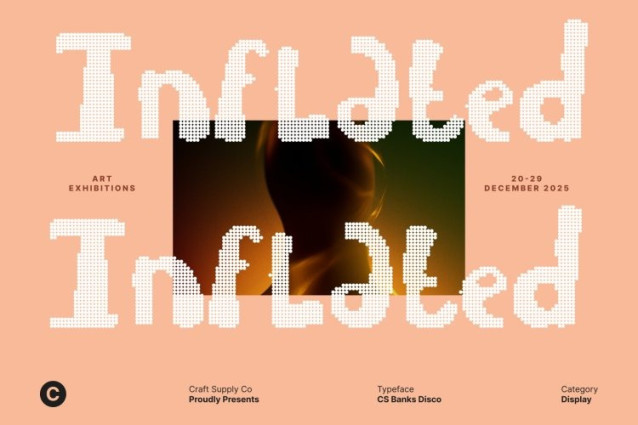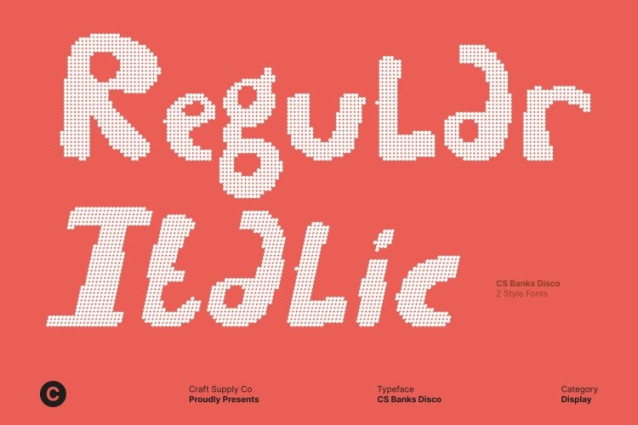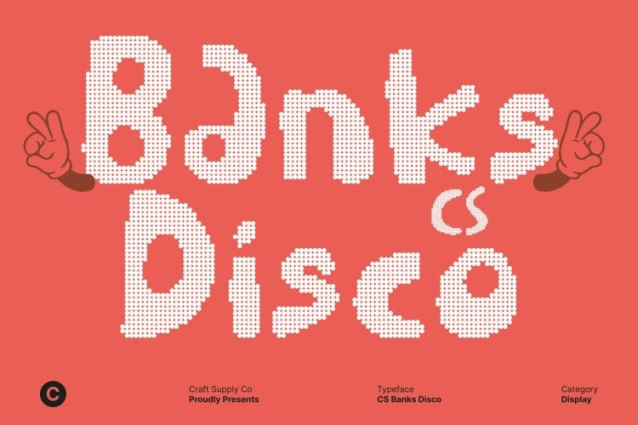
CS Banks Disco Font
CS Banks Disco Font This is a playful hand-drawn display font crafted with bold strokes and friendly geometric shapes. Its spontaneous, sketch-like construction gives each letter a joyful rhythm, creating a youthful and energetic appearance that feels natural, expressive, and full of character.
Experimental Letterforms with Funky Disco Flair
Embracing an experimental approach, this font features lively proportions and slightly uneven strokes that enhance its handcrafted charm. The disco style adds a funky, upbeat vibe inspired by colorful lights and dance-floor movement, turning every word into a playful visual performance. Each character feels animated, bringing motion and excitement to your typography.
Perfect for Youthful Branding and Creative Identities
This font shines in vibrant branding projects that want to feel fun, approachable, and bold. Ideal for lifestyle brands, kids’ products, casual cafés, creative studios, and playful merchandise, it adds a cheerful, confident voice to logos, packaging, and tagline designs.
Ideal for Party Graphics, Social Media, and Expressive Displays
From greeting cards and invitations to posters and social media visuals, this font delivers charm with high energy. Its friendly hand-drawn style combined with disco sparkle makes it perfect for party designs, festive campaigns, and fun digital content ensuring every headline feels lively, memorable, and ready to dance.